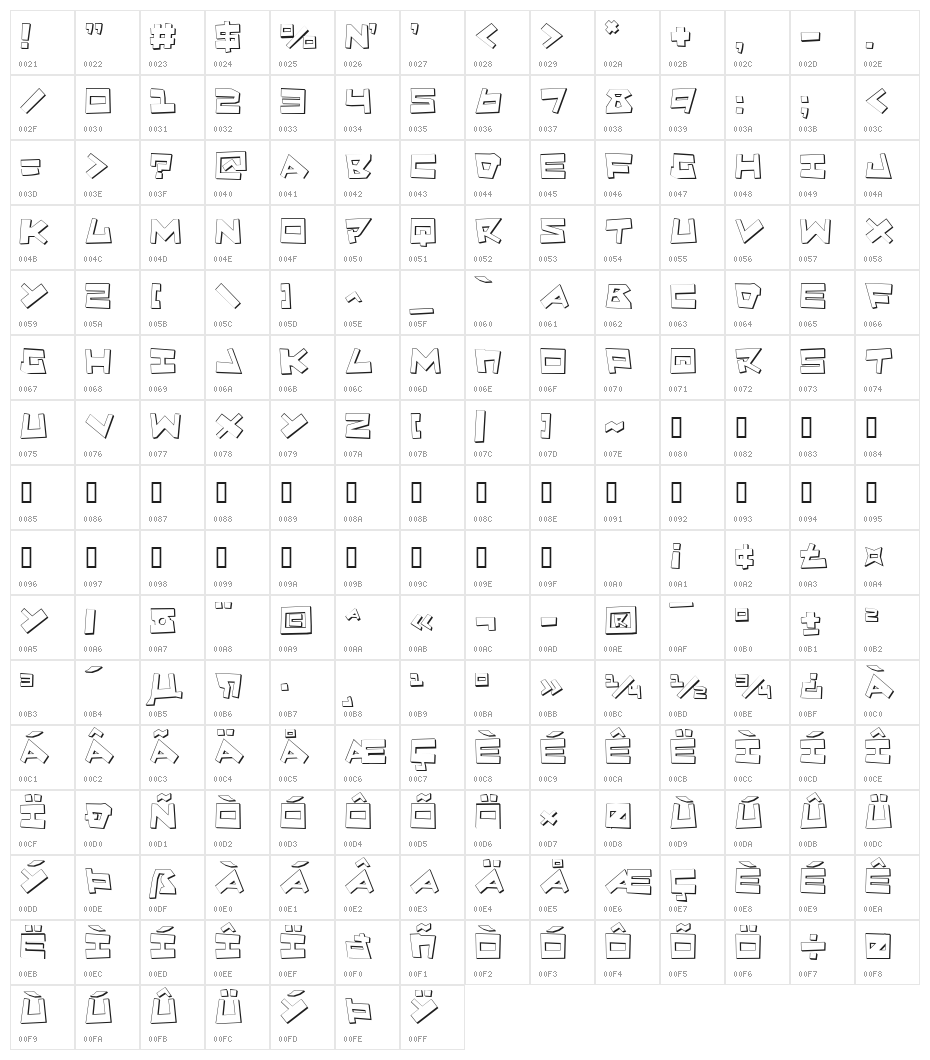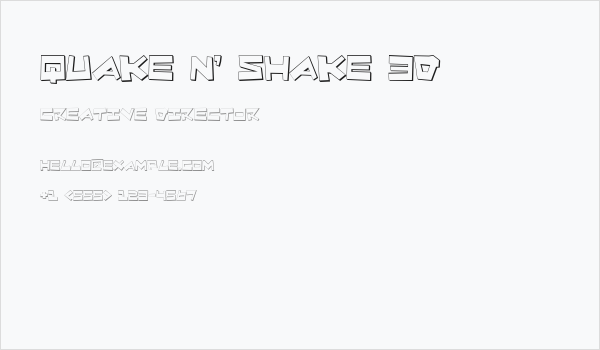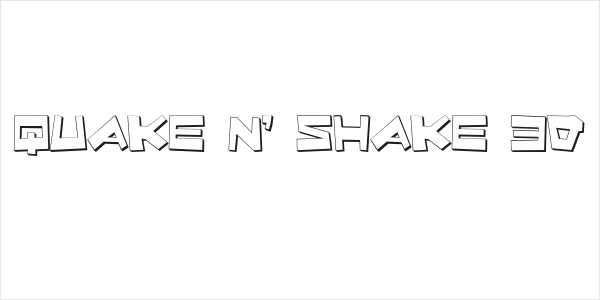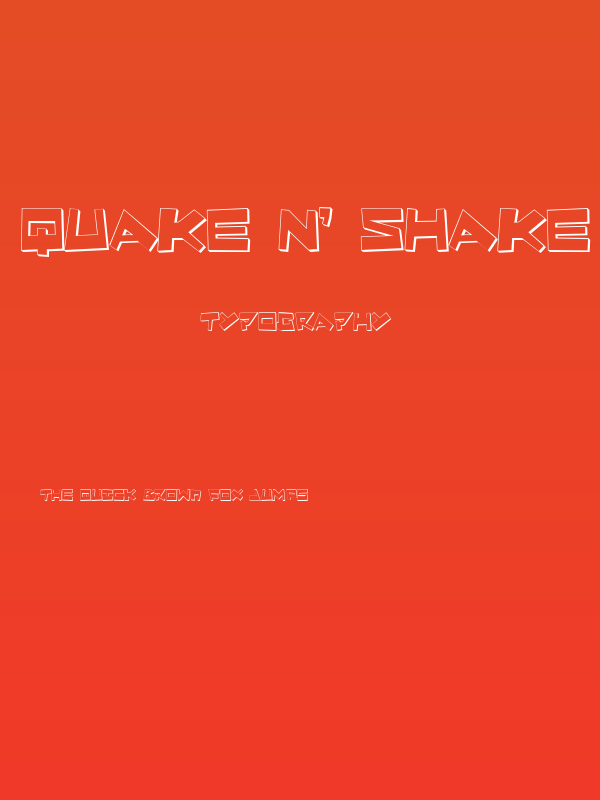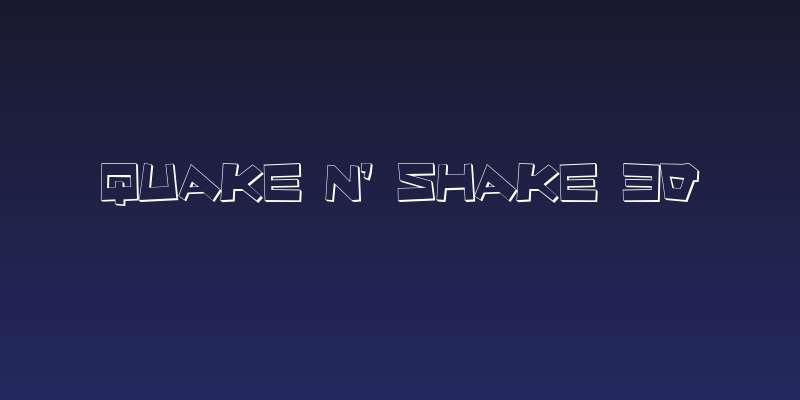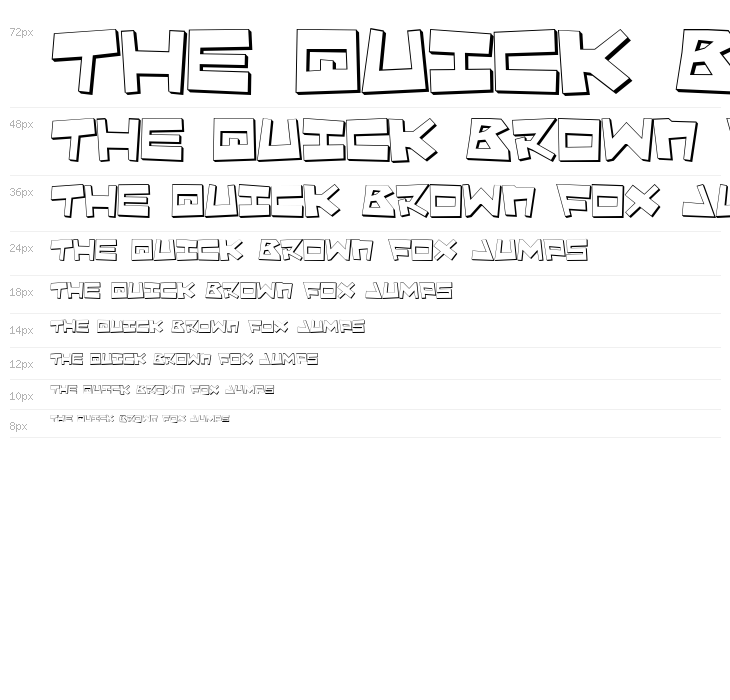
Quake & Shake 3D Font
Quake & Shake 3D Description
This font features a bold, three-dimensional design with a distinct outline that gives each character a dynamic and energetic appearance. The letters are angular and geometric, with a playful, almost cartoonish style that suggests movement and excitement. The uppercase and lowercase letters maintain a consistent style, while the numbers and special characters complement the overall aesthetic. The font's unique look makes it ideal for projects that require a strong visual impact.
| Proposed Projects | Perfect for video game titles, posters, comic books, and any project needing a bold, energetic typeface. |